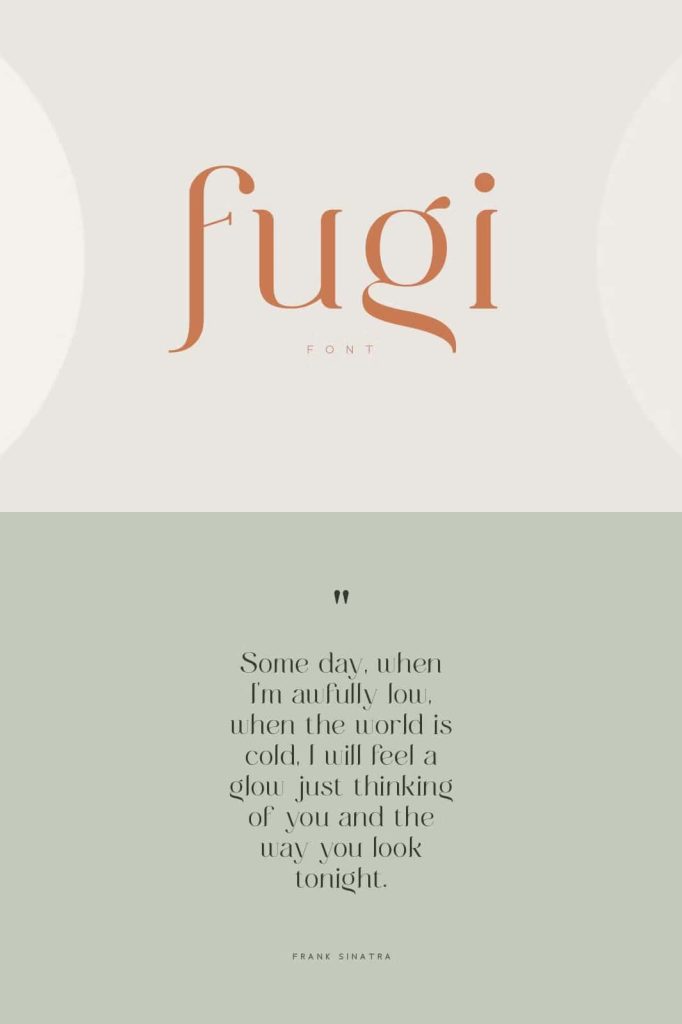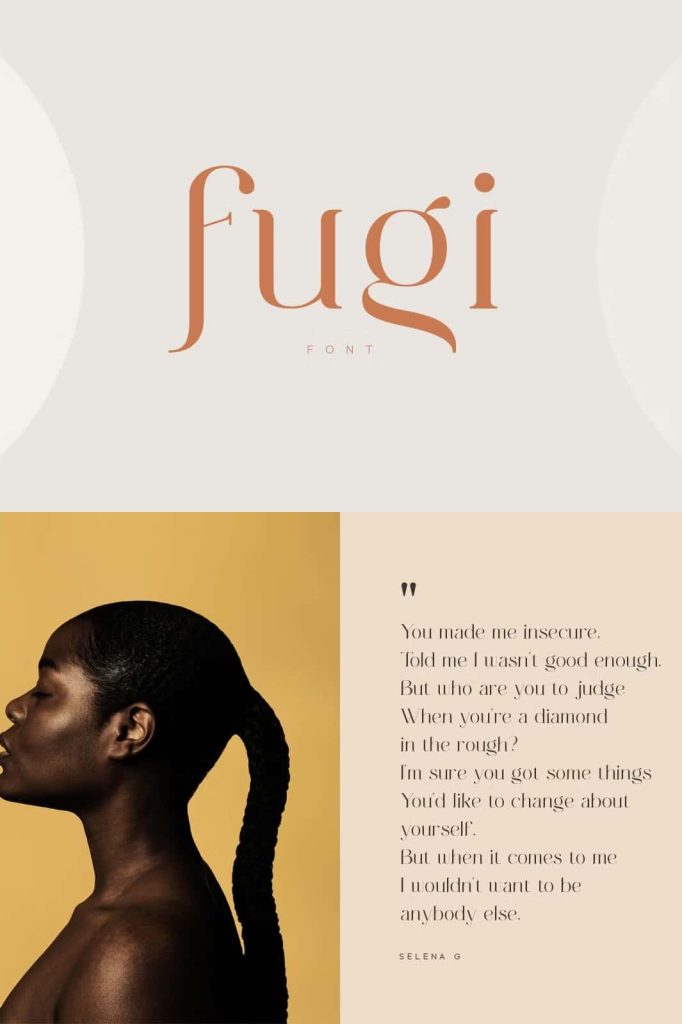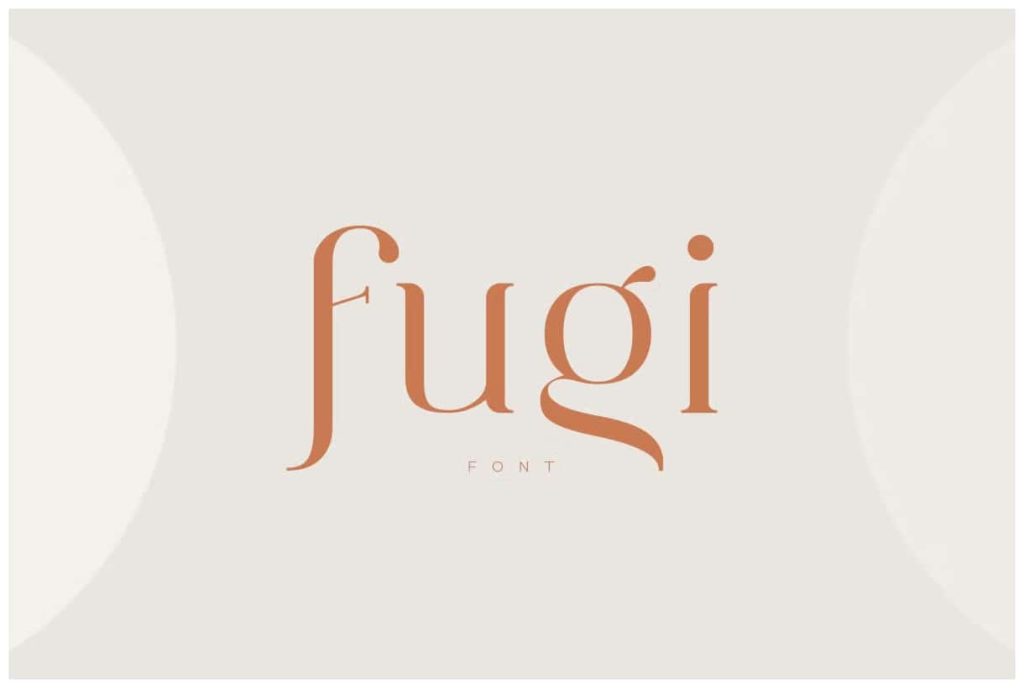
Fugi FontleastedApril 17, 2025Fonts Fugi is modern fashion serif font, every single letters have been carefully crafted to make your text looks unique. Download